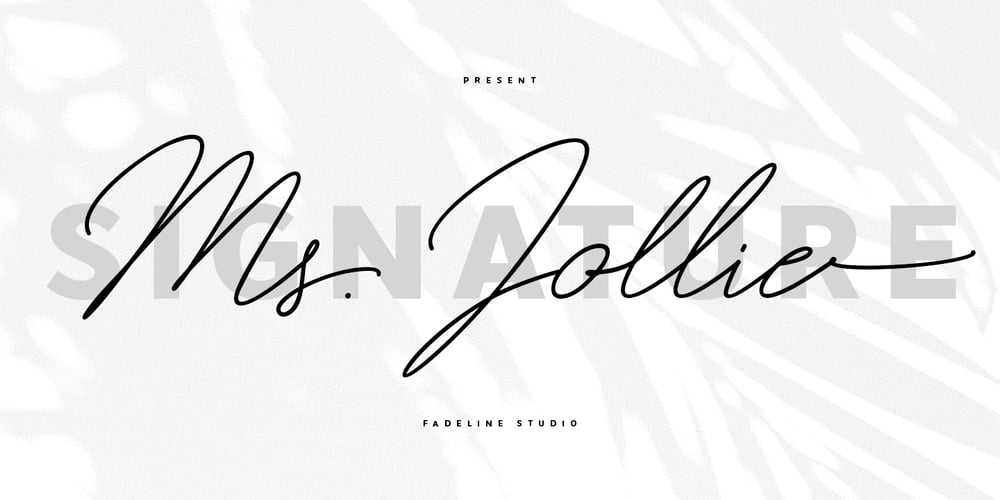
Ms. Jollie
Ms. Jollie font
Ms. Jollie Font Family was designed by Juni Fadil Putra and published by FadeLine Studio. Ms. Jollie contains 1 styles and family package options. Ms. Jollie is a new signature font. This font is designed with a monoline and slant style. In this font you will find a style of simple, luxury, and modern.With a style like this, this font will be suitable in use for logos, branding projects, homeware designs, product packaging, mugs, quotes, posters, shopping bags, t-shirts, book covers, name cards, invitation cards, greeting cards, and all your other lovely projects.